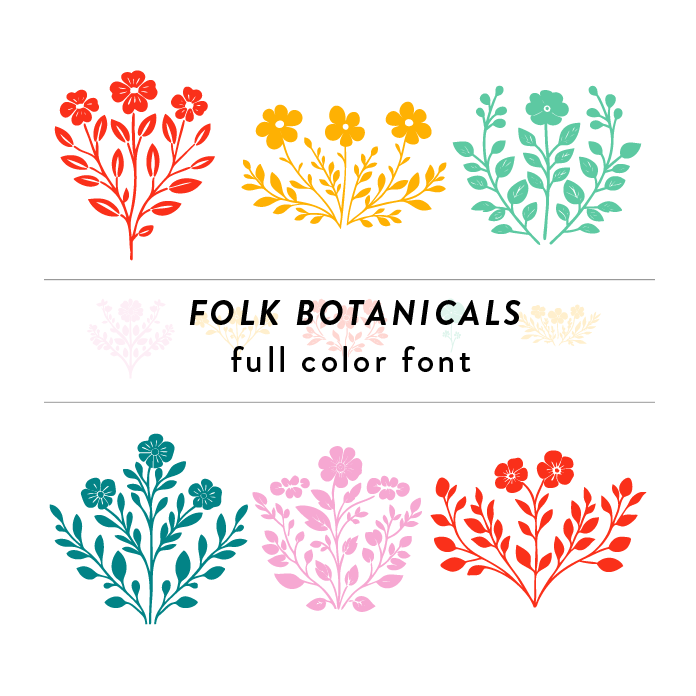
Color fonts will appear black if not used in a compatible program. This font type should be used with Silhouette Studio to appear in color. These nordic-inspired assemtrical flower botanical designs are a great addition to your collection. Create fun Fiesta party decor, home decor, spring, summer, and Mother's Day projects.